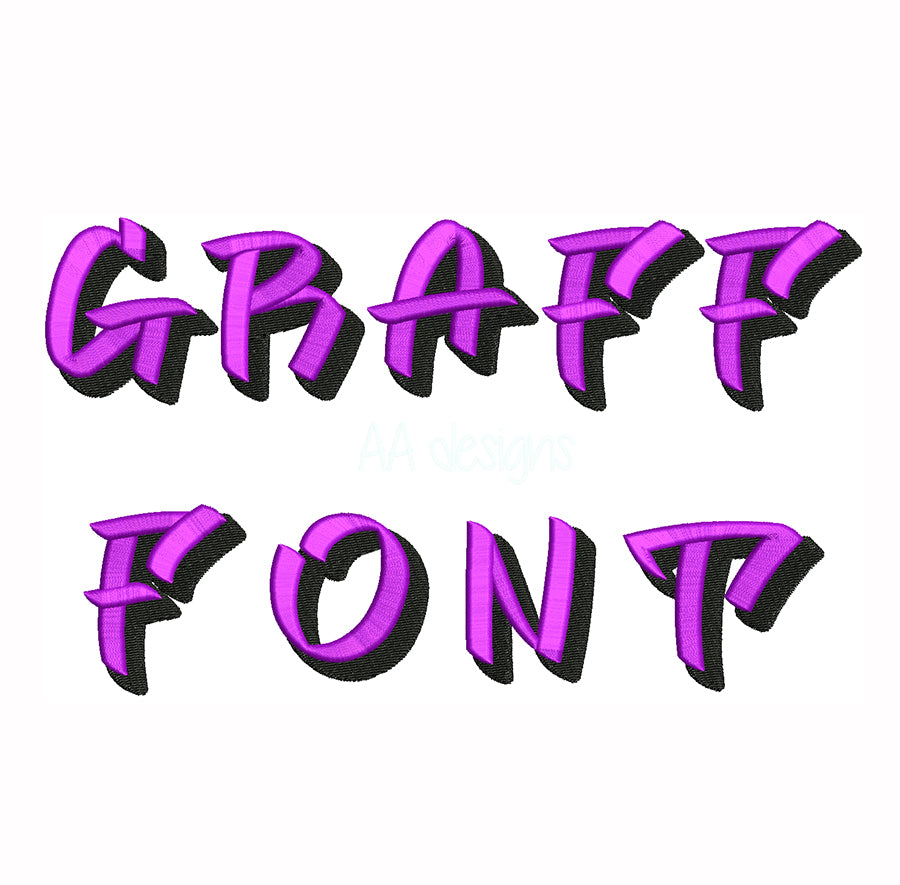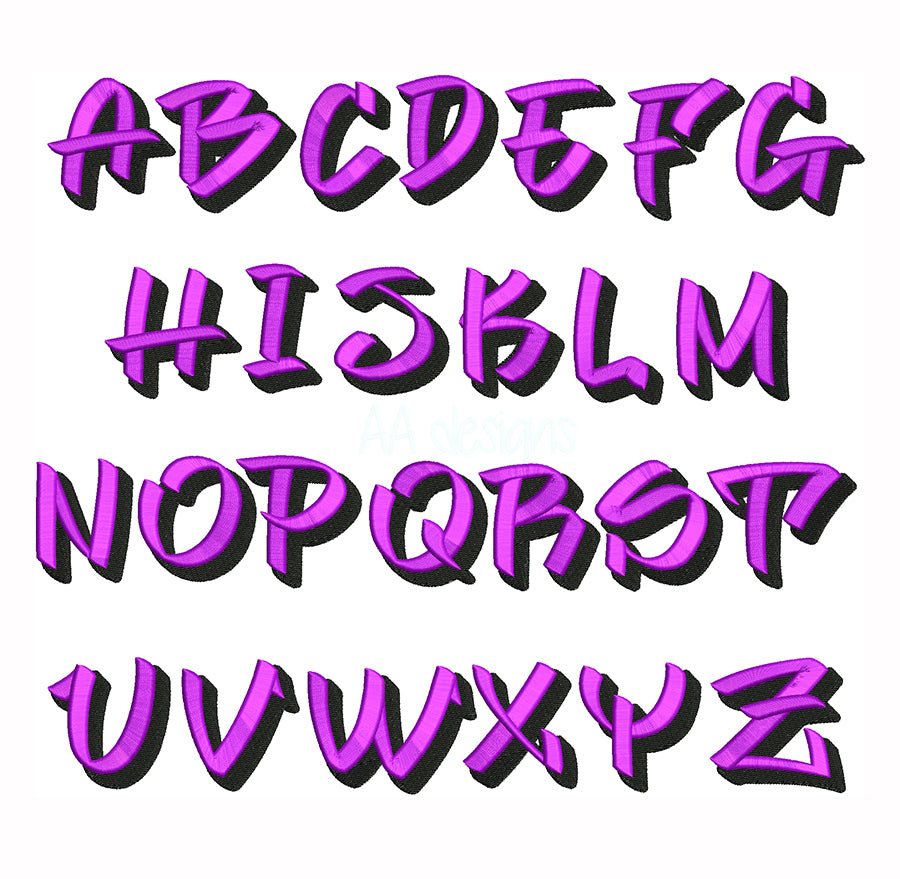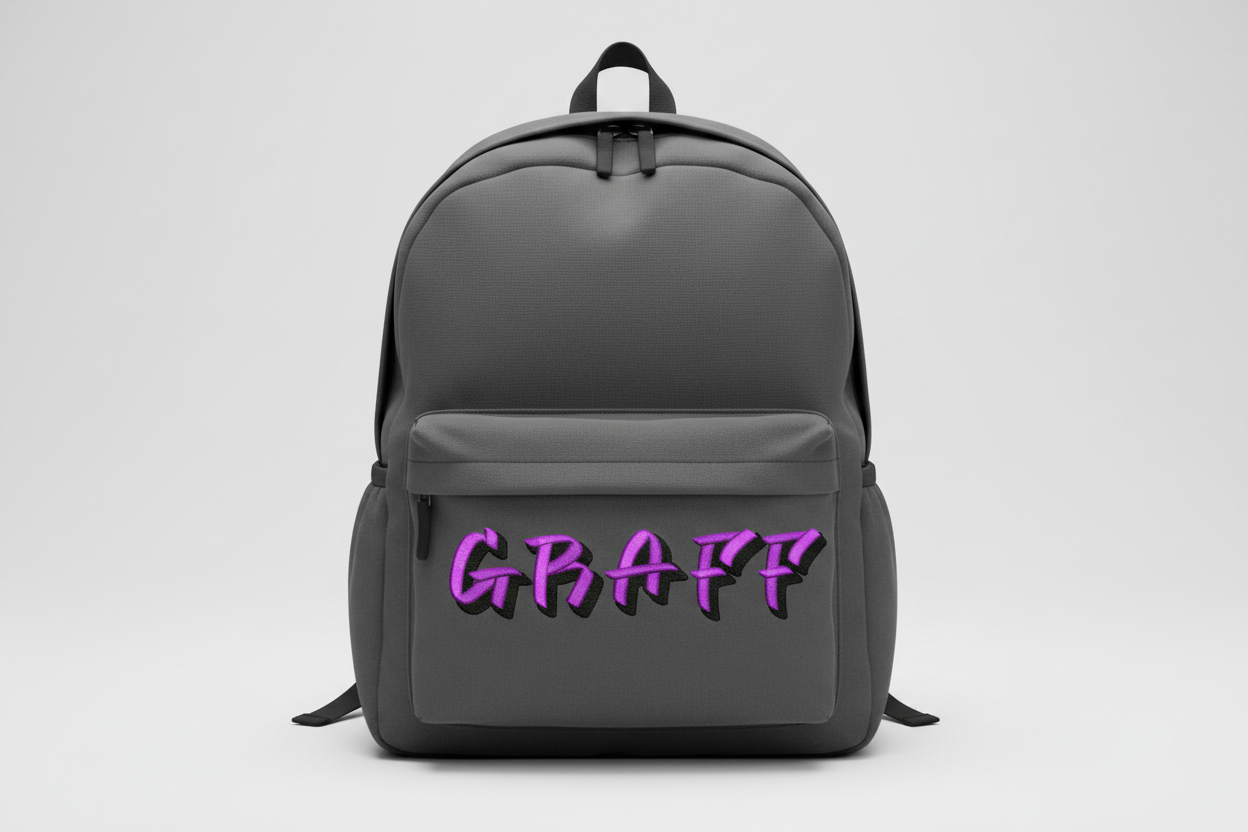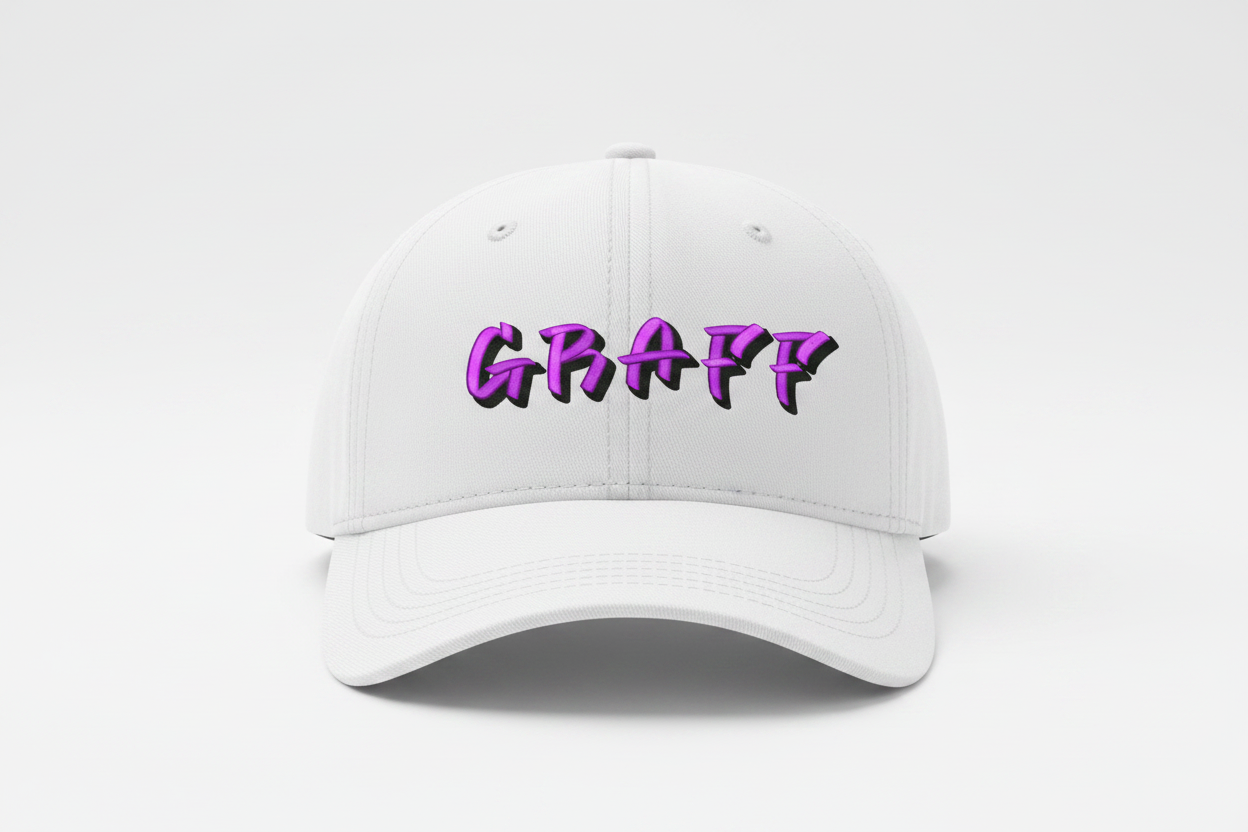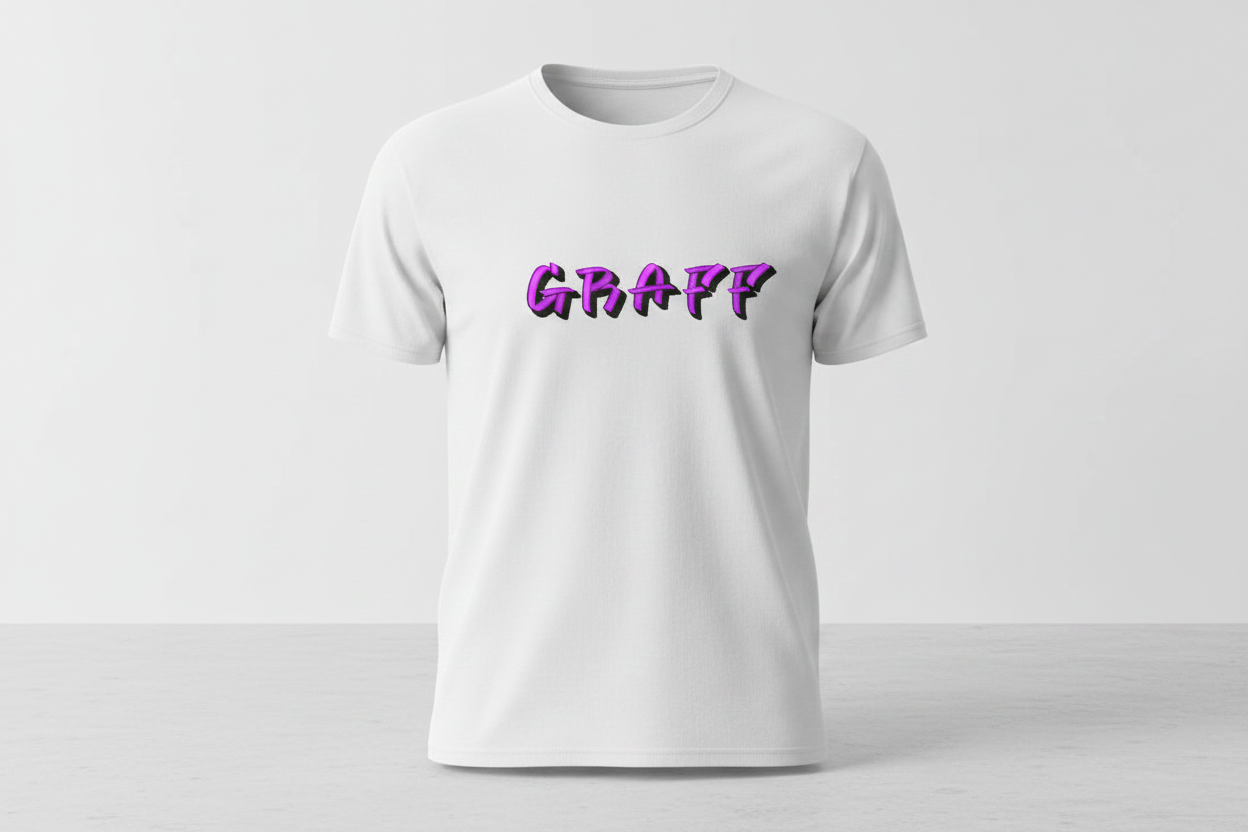
Graffiti 3D puff embroidery digital font. 3D puff embroidery font with foam. BX file also included.
Instant-download machine embroidery 3D puff graffiti font — bold, urban, and eye-catching on hats, backpacks, and apparel. Compatible with all major embroidery formats.
- 3D puff graffiti embroidery design
- Great for caps, backpacks, and t-shirts